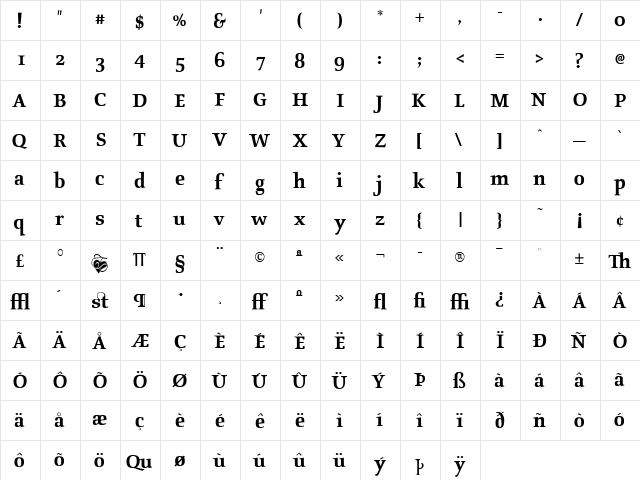
AIProsperaII Bold
Design Context for AIProsperaII Typeface
AIProsperaII offers clean, dependable letterforms without strong stylistic allegiance, making it a practical choice for designers who need flexibility. Its bold stroke weight gives it real presence on the page.